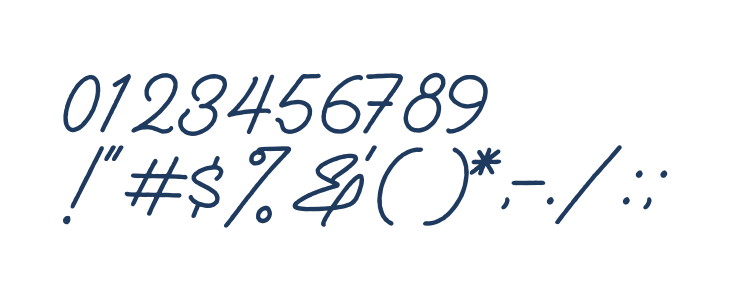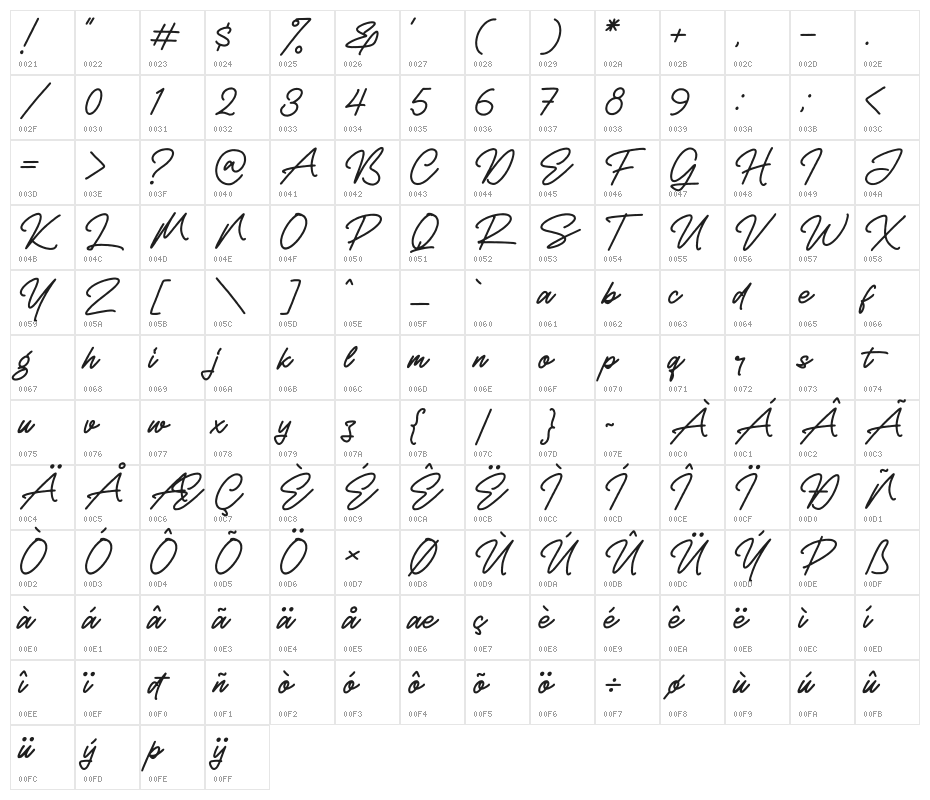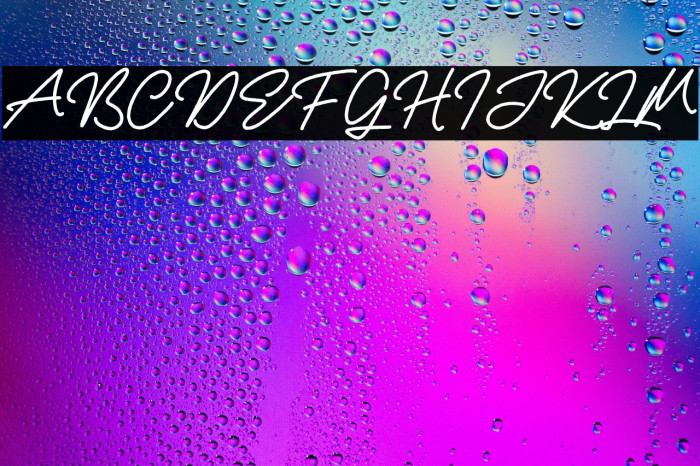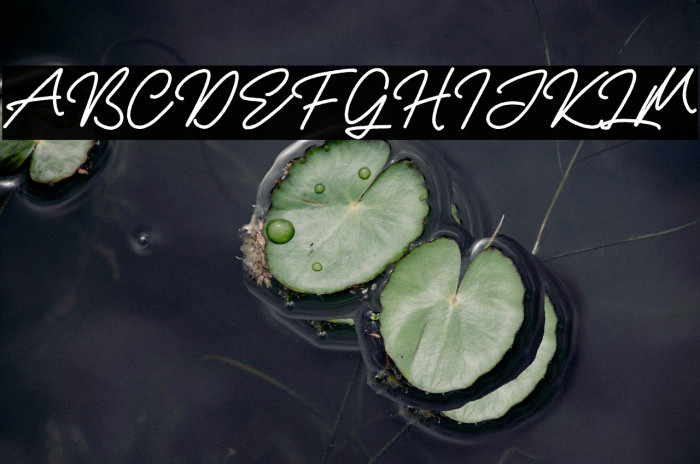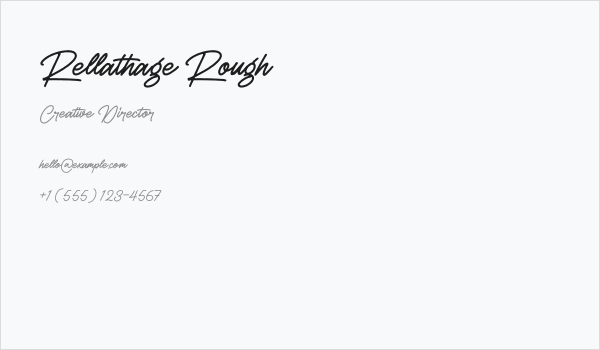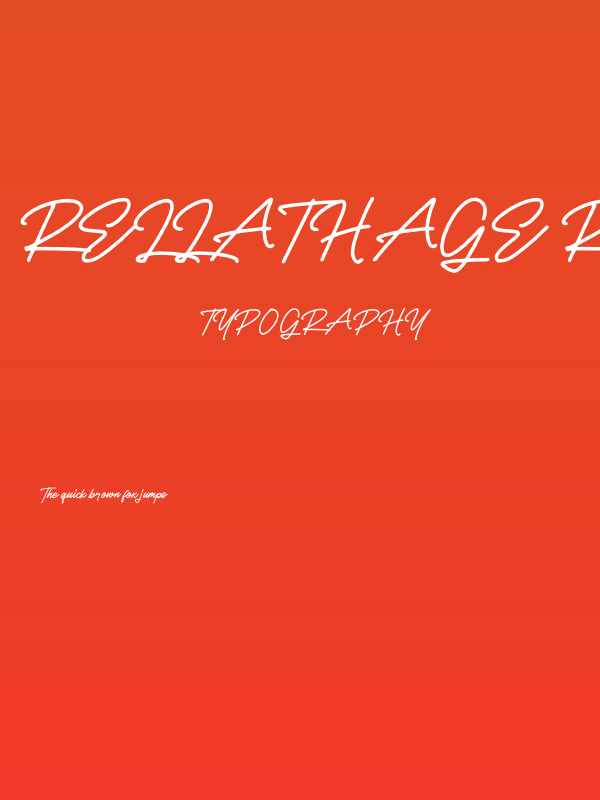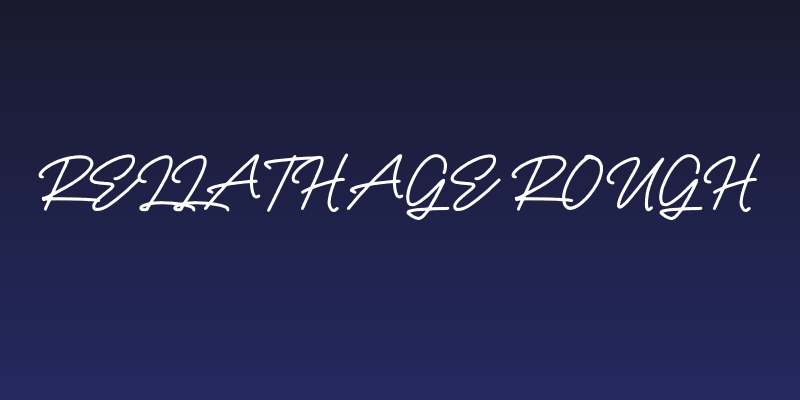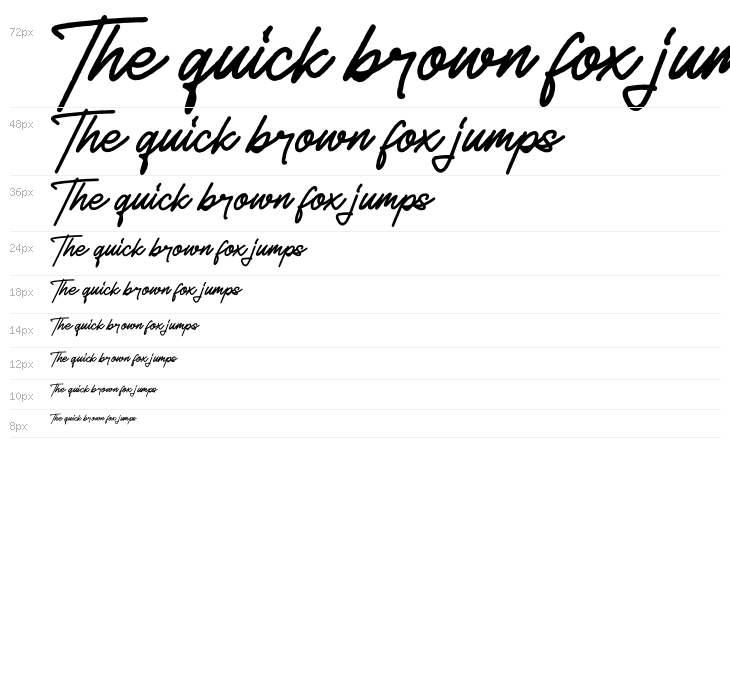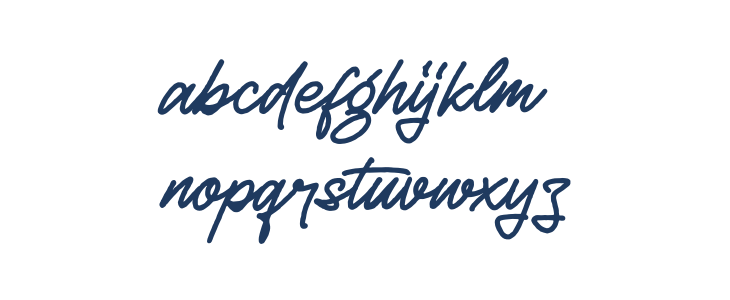
Rellathage Rough Font
Rellathage Rough Description
This font features a dynamic and expressive handwritten style, characterized by its fluid and continuous strokes. The uppercase letters exhibit a graceful, cursive form with elegant loops and swashes, giving them a sophisticated yet approachable appearance. The lowercase letters maintain a consistent flow, with some characters featuring distinctive flourishes that enhance the overall aesthetic. The numerals are clear and legible, maintaining the script's fluidity. Special characters are well-integrated, matching the font's overall style. This font's rough texture adds a touch of authenticity and charm, making it ideal for projects that require a personal and artistic touch.
| Use Case | Logos, Invitations, Artistic projects |
| Proposed Projects | Ideal for wedding invitations, greeting cards, personal branding, and artistic projects. |